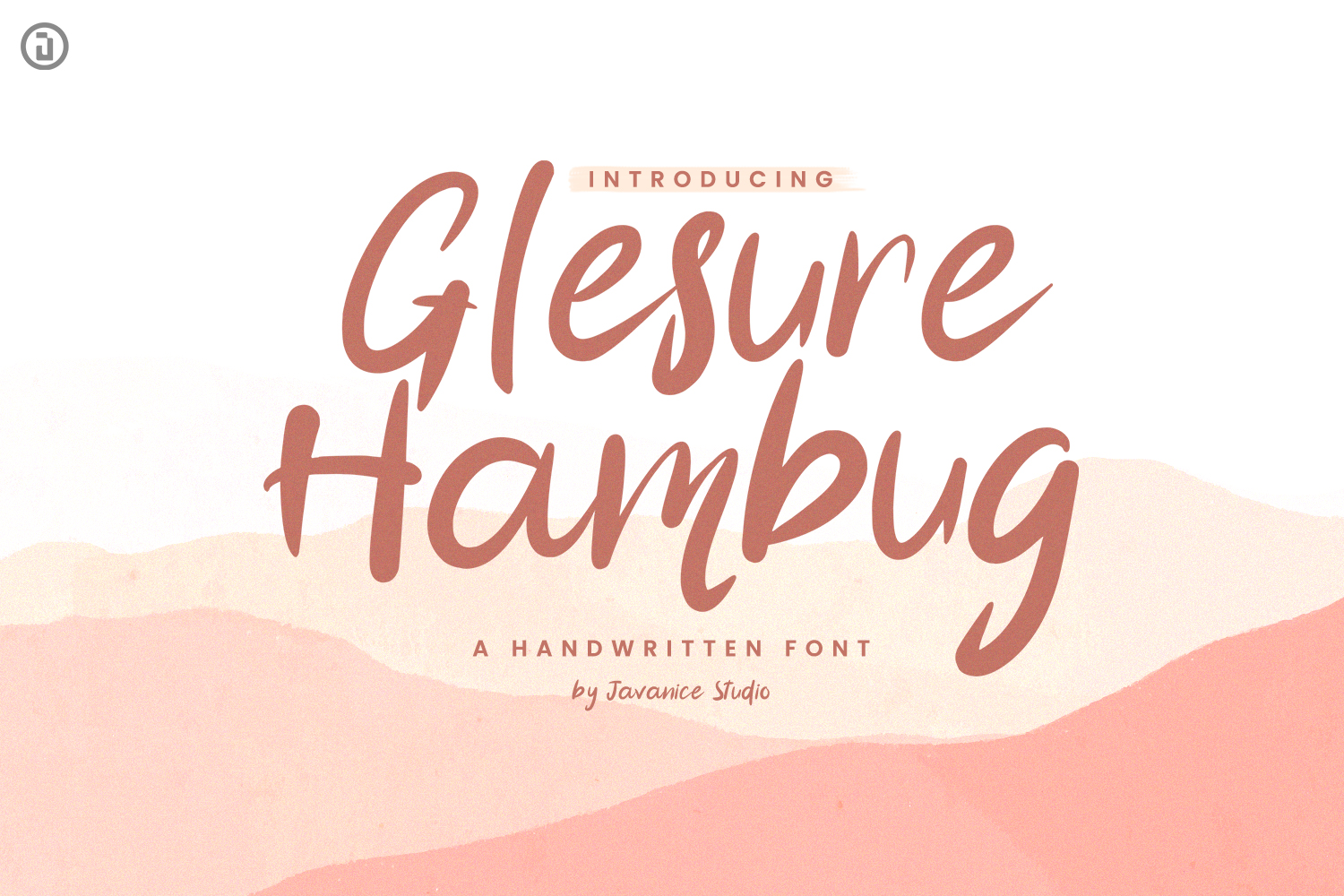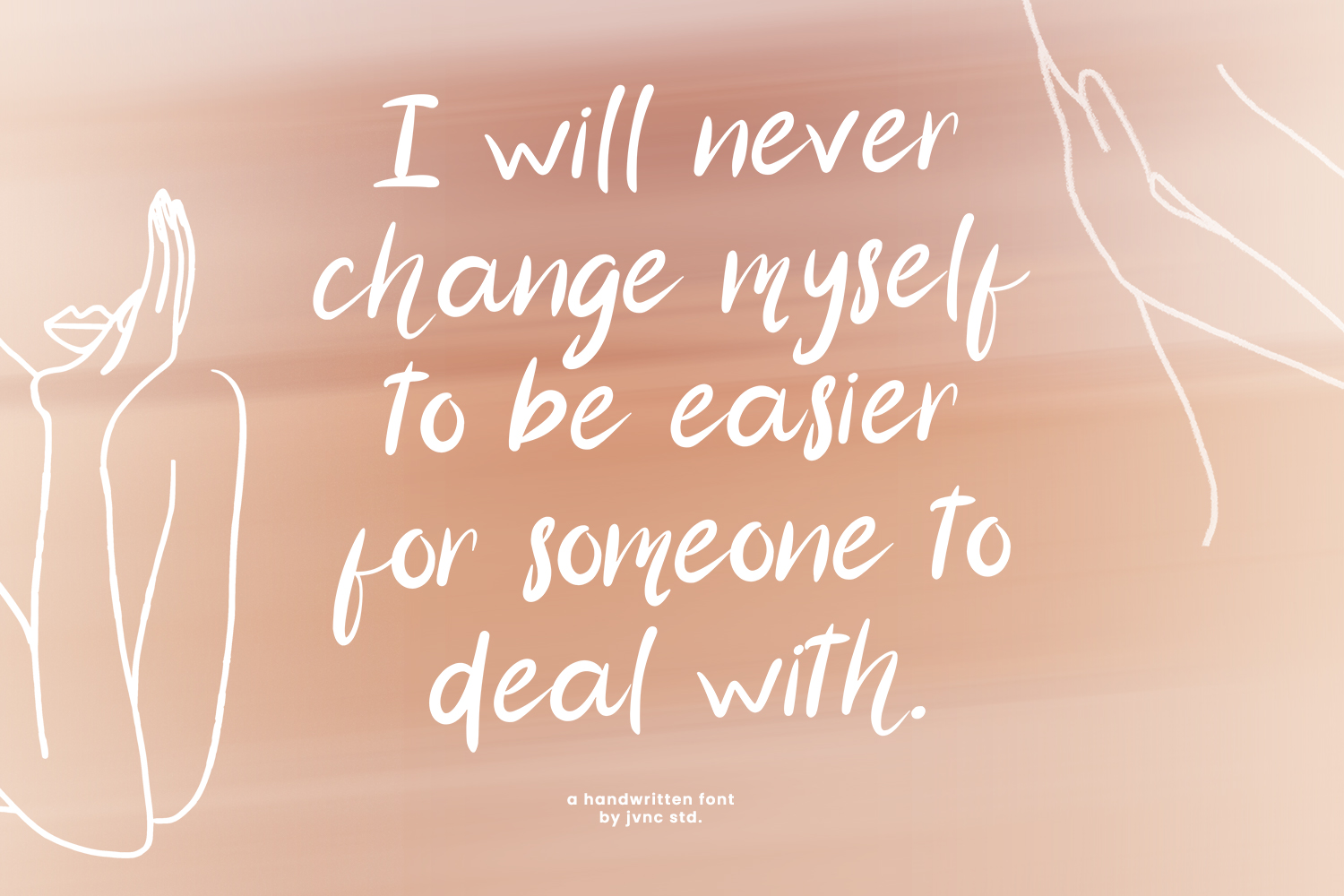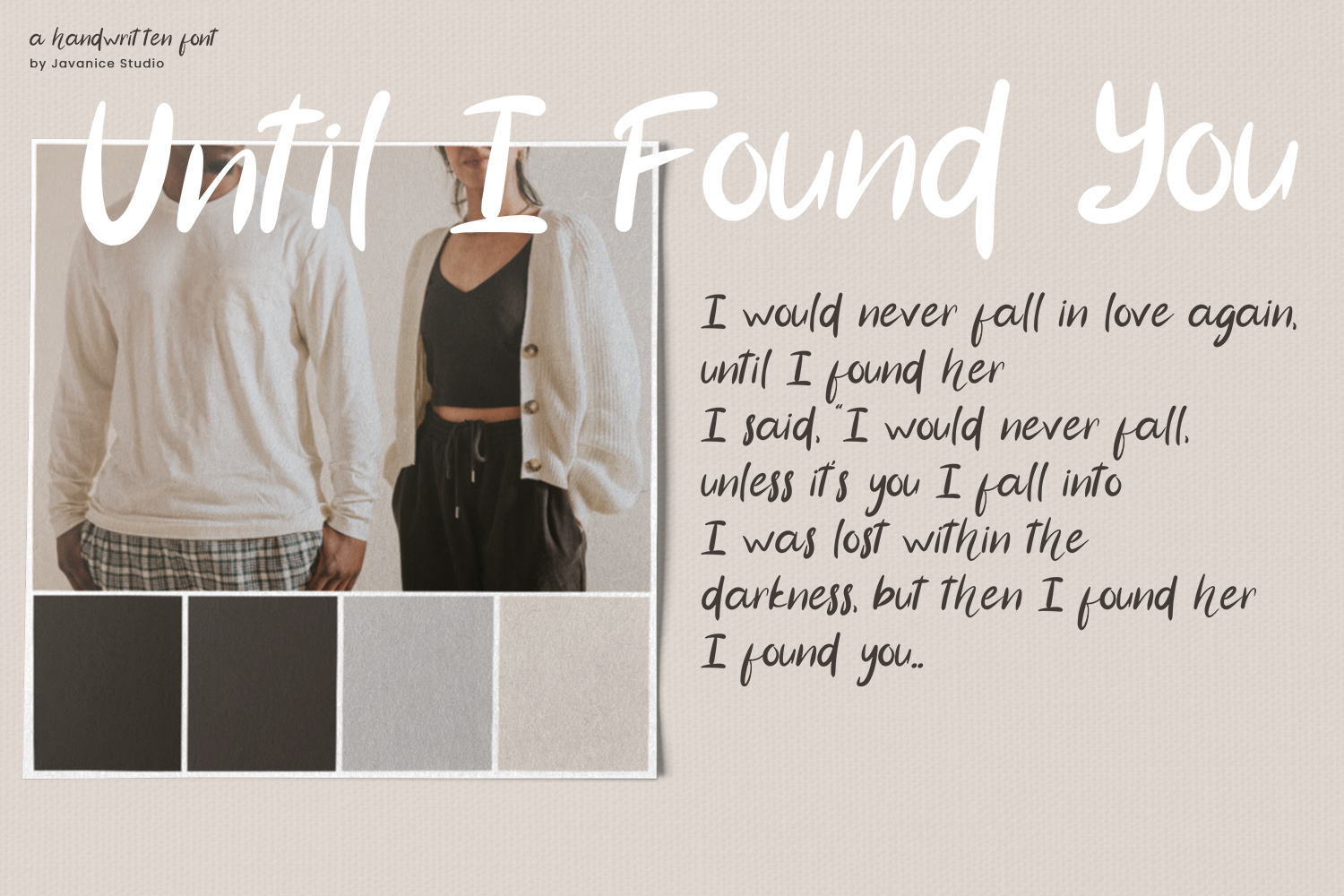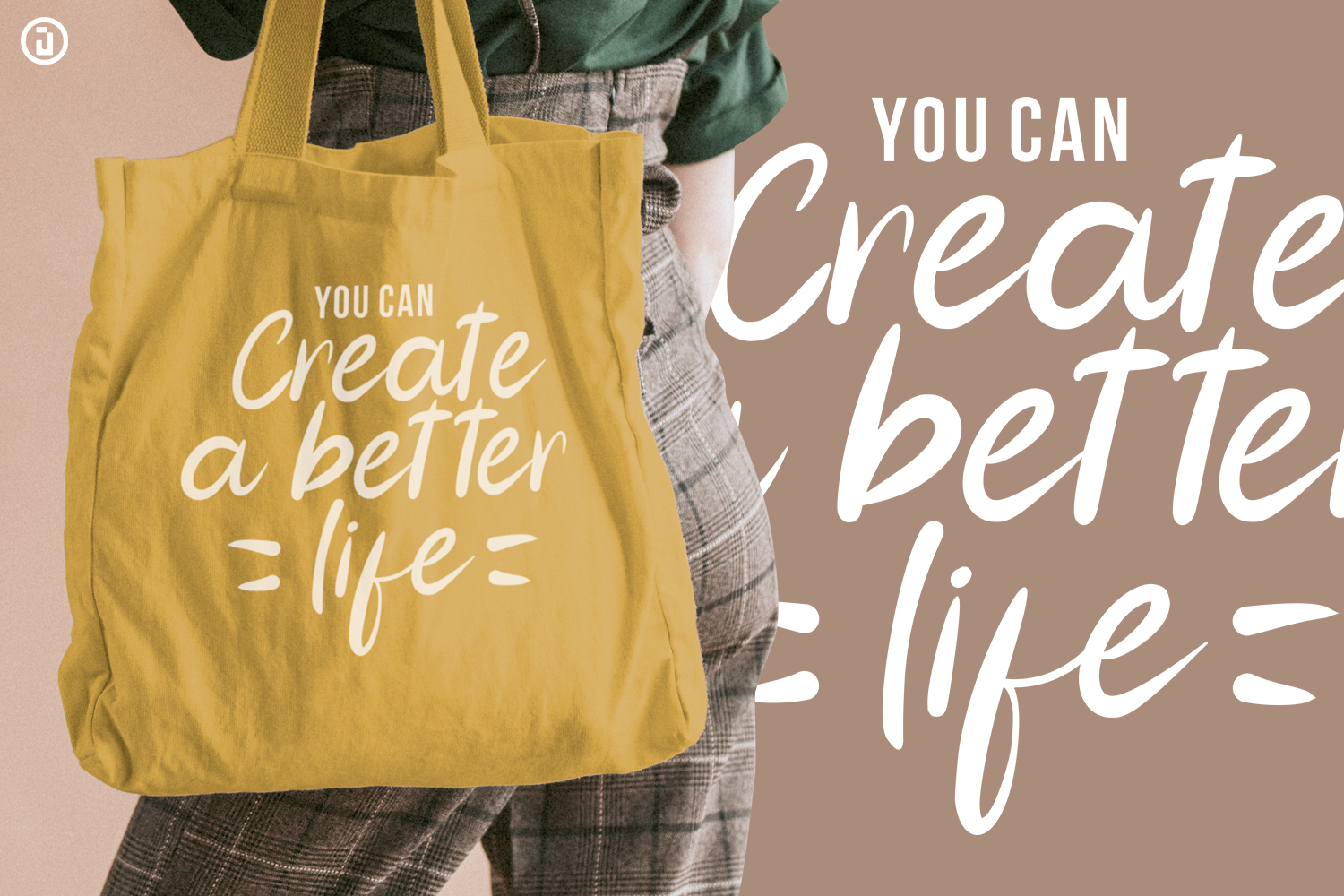
Glesure Hambug Free Font
Meet Glesure Hambug Free Font, a captivating handwritten font designed with a friendly and lovely touch. Perfectly suited for your daily diary planner and journaling needs, it also complements a wide array of projects, including back-to-school themes, weddings, party decorations, invitations, festivals, posters, blogs, clothing designs, child-related artwork, greeting cards, social media posts, and anything in need of a warm and inviting touch. Make Glesure Hambug a valuable addition to your fonts library, and witness how it breathes life into all your DIY endeavors. Embrace its charm and let your creativity soar. This free typeface was designed by a talented Javanice Studio. If you like it don’t forget to check out the full version.